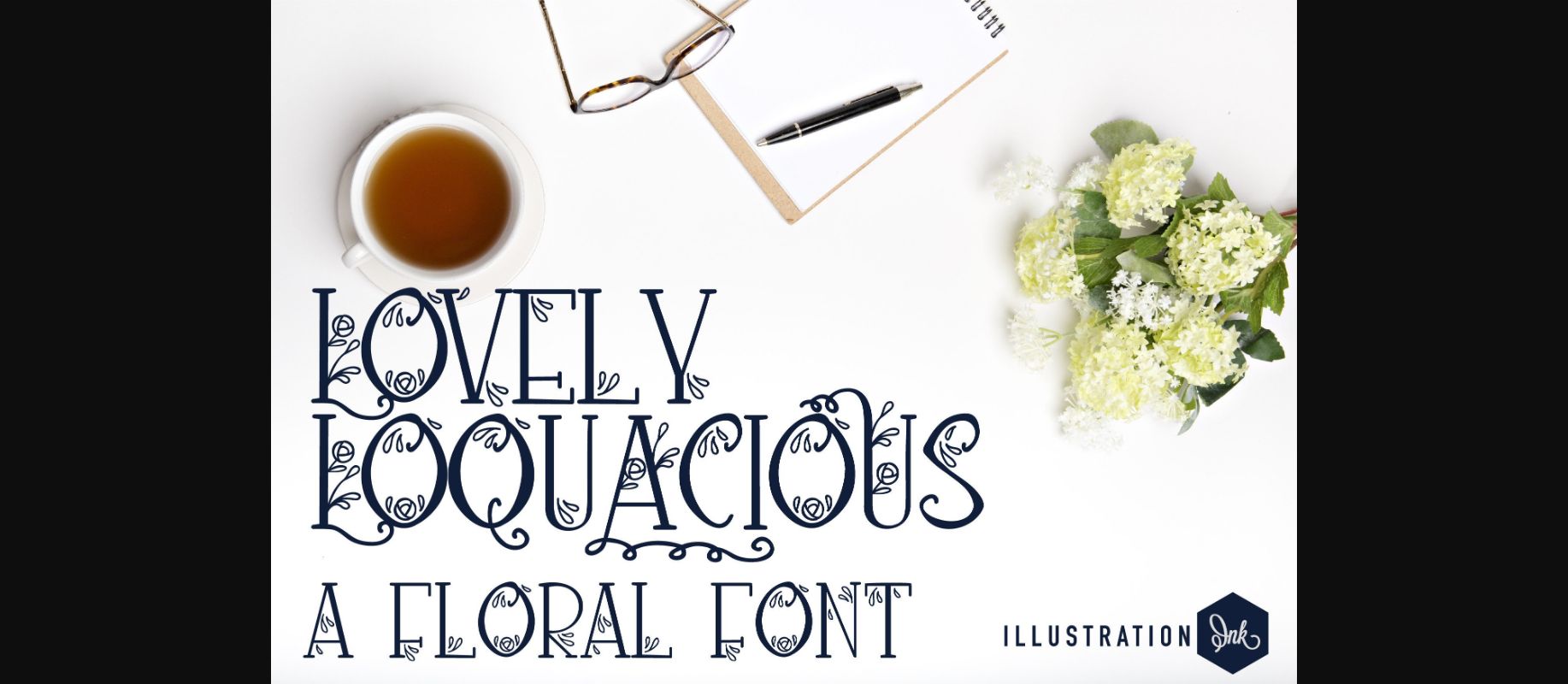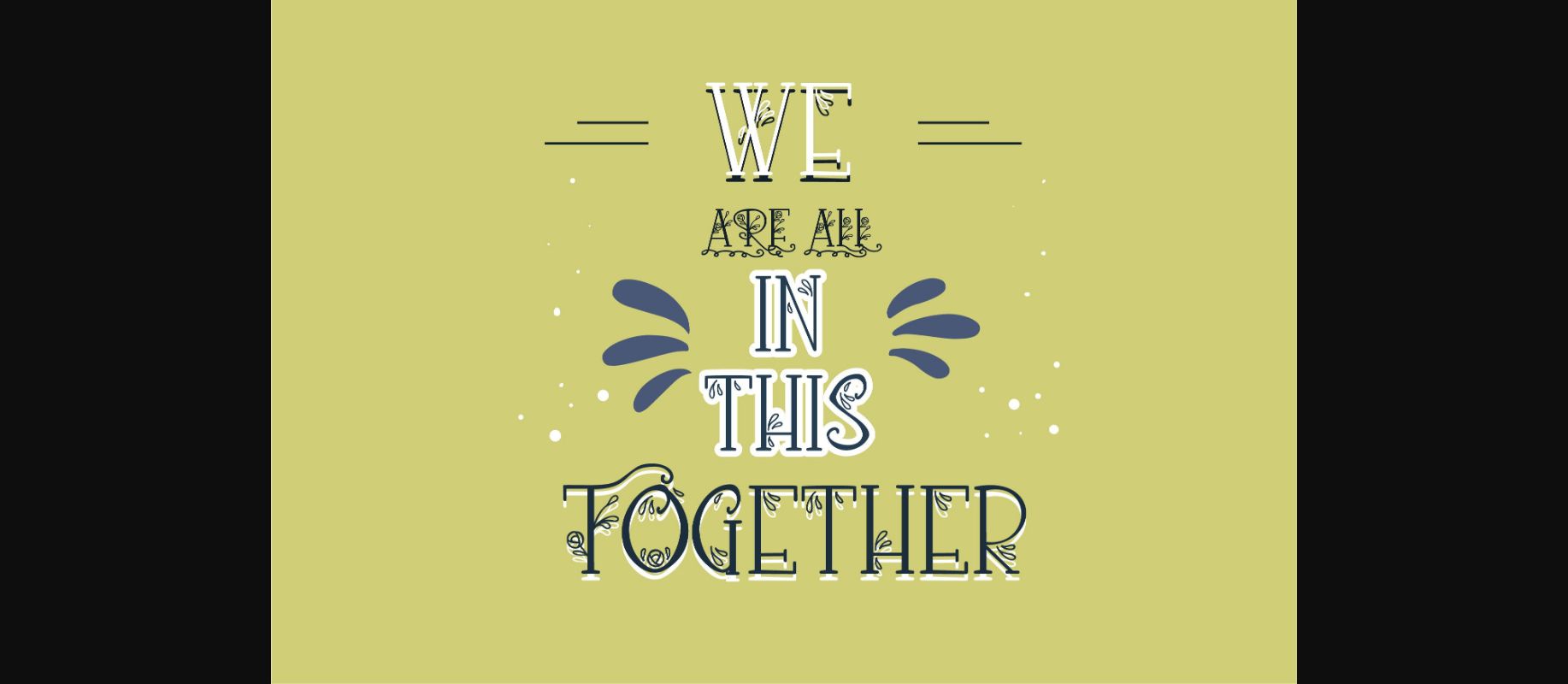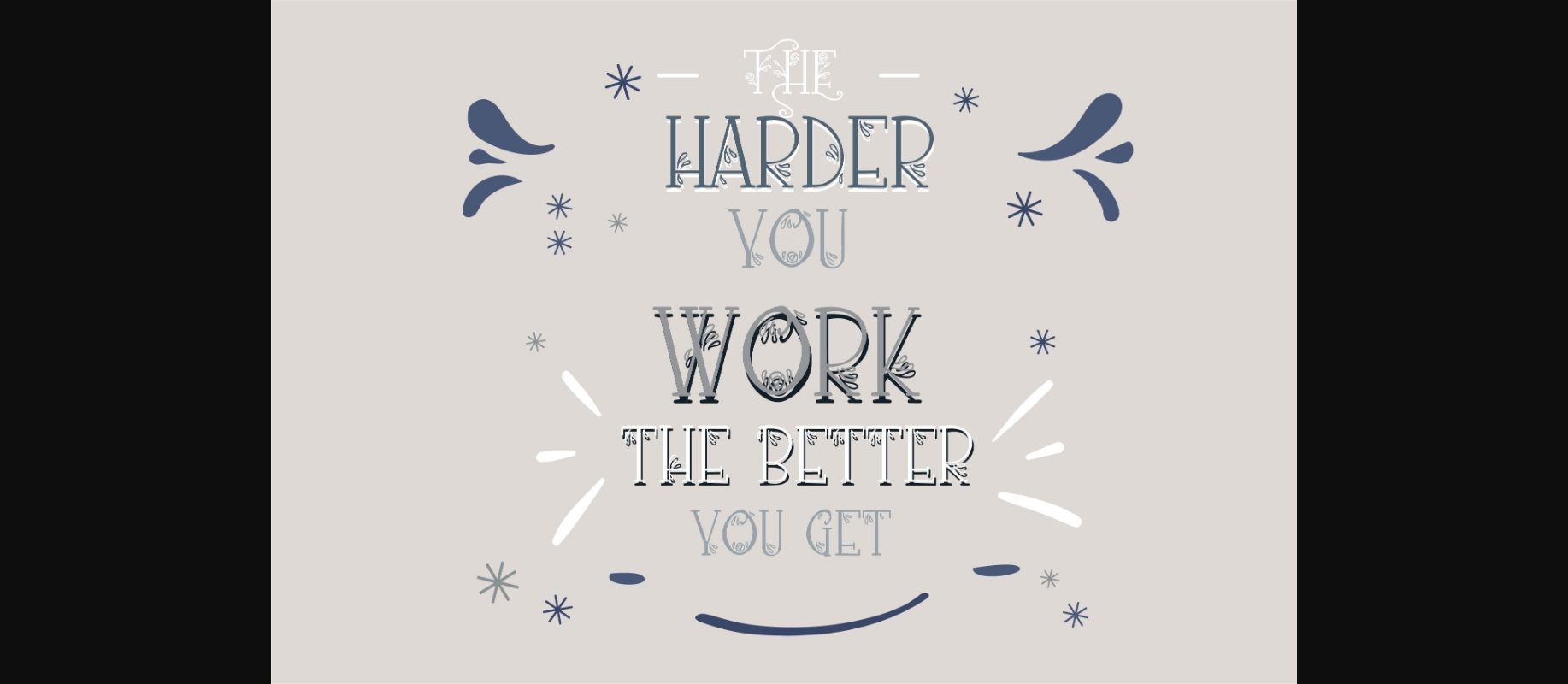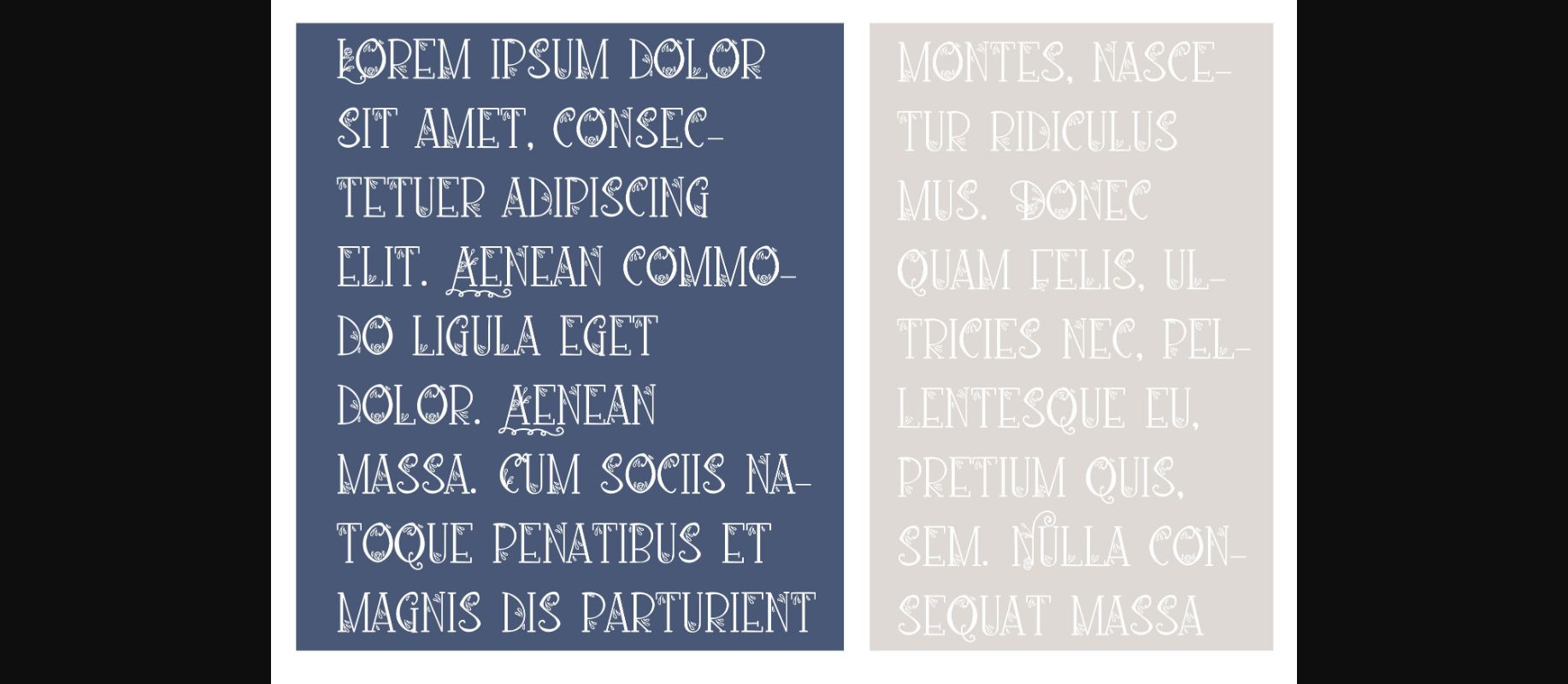
About Lovely Loquacious Font
Lovely Loquacious is a cute and adorable decorative handwritten font that features blooms and many flourishes. No matter the topic, this font will be an incredible asset to your fonts’ library, as it has the potential to elevate any creation.